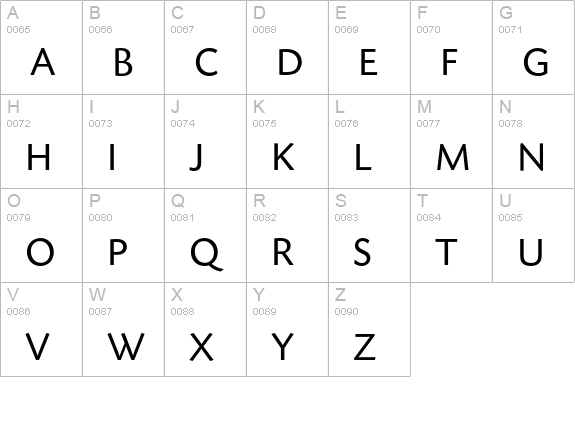
Today Sans Serif Caps Regular Font Details
Today Sans Serif Caps Regular is the standard, neutral variant in the Today typeface family \xE2\x80\x94 well suited to general body text, paragraphs, and standard typographic work.
Today Sans Serif Caps Regular font is a modern and stylish typeface that exudes simplicity and elegance. Its clean lines and bold letterforms make it perfect for a wide range of design projects, from logos and branding to headlines and posters. This font is characterized by its uppercase letters, which are carefully designed to create a striking visual impact. Each letter is perfectly balanced, with consistent line thicknesses and spacing, resulting in a harmonious and polished look. With its versatility and timeless appeal, Today Sans Serif Caps Regular font can be used in both digital and print applications. It is highly legible even at small sizes, ensuring that your message is effectively communicated to your audience. What makes Today Sans Serif Caps Regular font even more appealing is that it is available for free download at FontsMarket.com. This means that you can easily access this high-quality font without breaking the bank. Whether you are a professional designer or a hobbyist, this font is a valuable addition to your typographic toolkit. So why wait? Enhance your designs with the sleek and modern aesthetics of Today Sans Serif Caps Regular font. Download it for free today at FontsMarket.com and give your projects a professional and sophisticated edge.